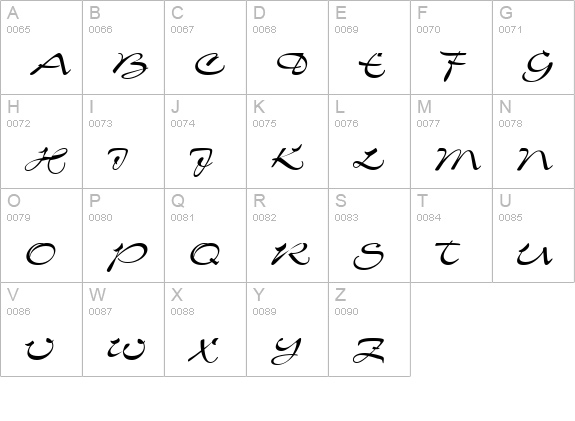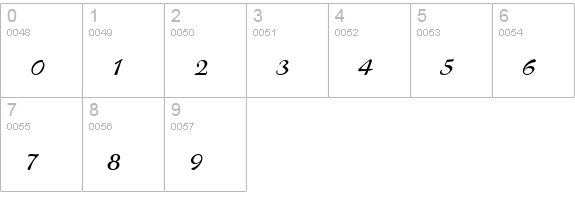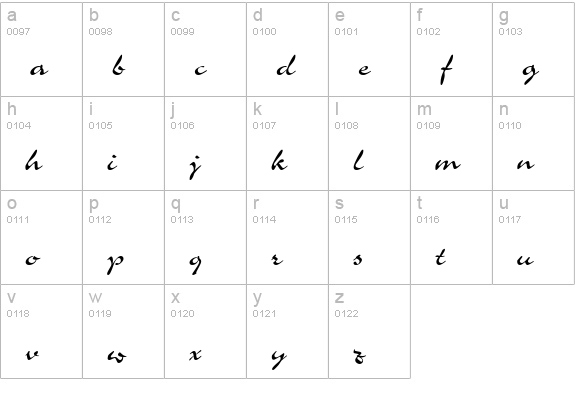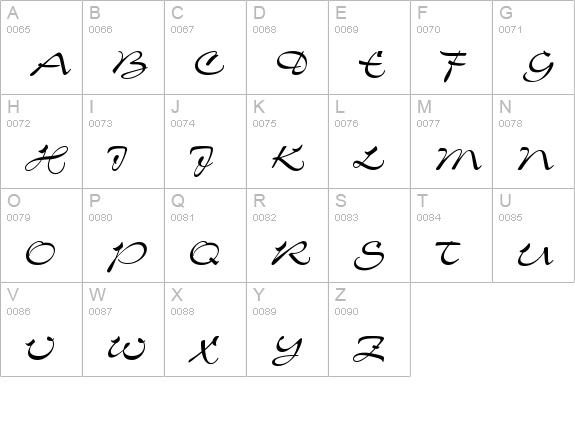
Airfoil Script SSi Font Details
Airfoil Script SSi font is a beautiful and elegant script typeface that exudes sophistication and style. Its flowing and graceful letterforms make it perfect for adding a touch of class to any design project. This font is versatile and can be used for various purposes such as invitations, logos, branding, and more. The best part about Airfoil Script SSi font is that it is available for free download at FontsMarket.com. This means that you can easily access this stunning font without any cost, making it a great addition to your font collection. Don't miss out on the opportunity to enhance your designs with the timeless elegance of Airfoil Script SSi font.